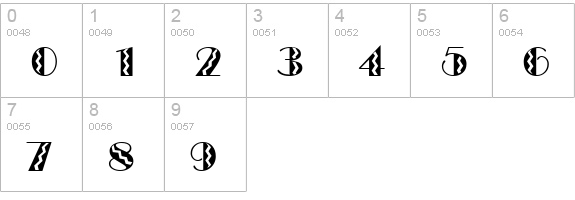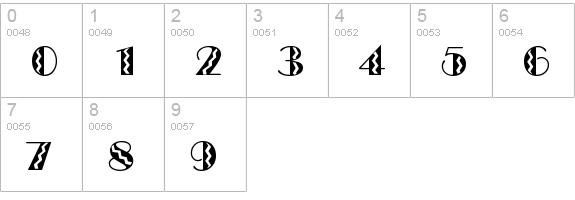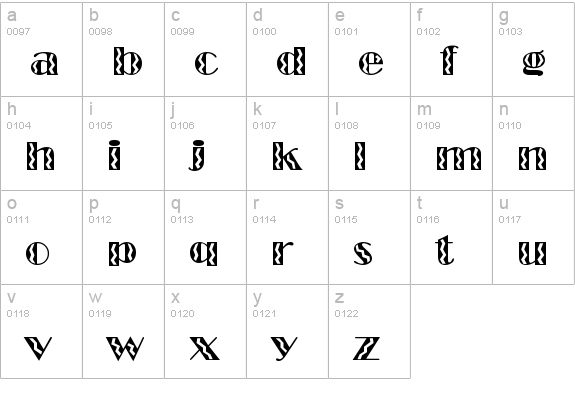
GE Fiesta Marquee Font Details
The GE Fiesta Marquee font is a charming and elegant typeface that exudes a festive and celebratory vibe. With its unique design and playful curves, this font is perfect for adding a touch of whimsy to your projects. Whether you're creating invitations, posters, or social media graphics, the GE Fiesta Marquee font is sure to make your text pop. Best of all, this font is available for free download at FontsMarket.com. Simply head over to the website to grab your copy and start using this delightful font in your designs today. Let the GE Fiesta Marquee font bring a touch of fun and excitement to your creative projects!